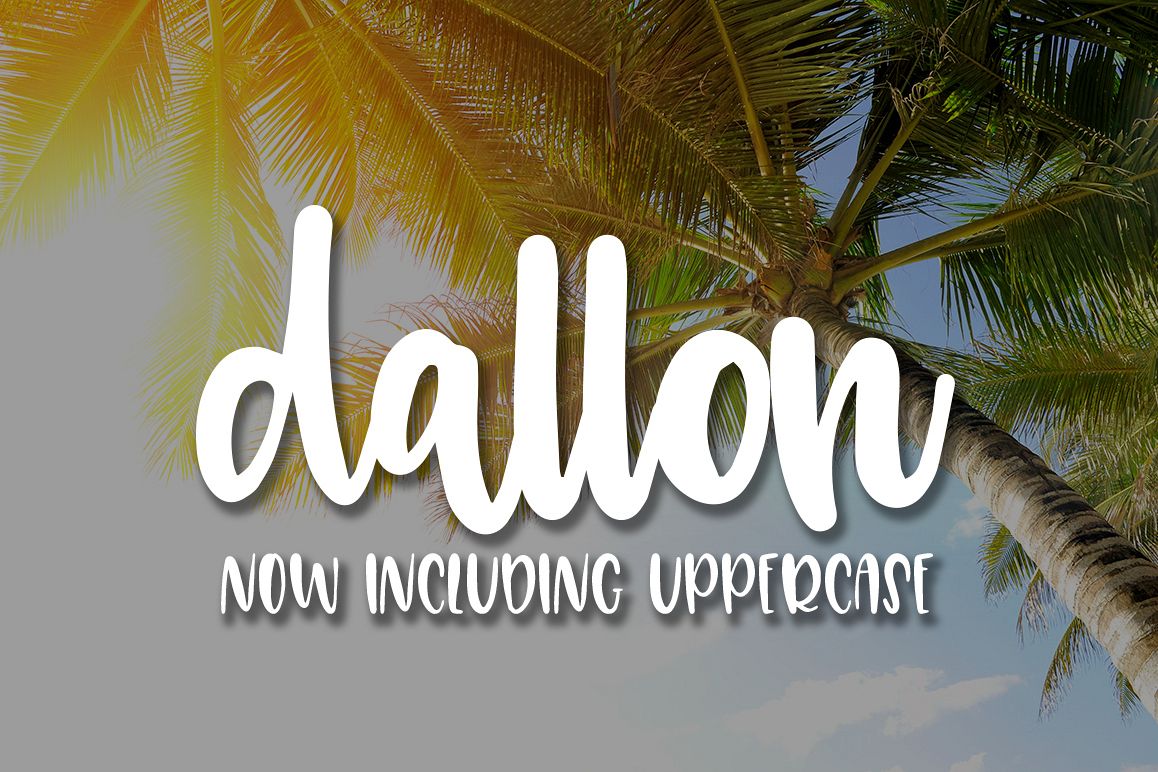
Dallon
Dallon is a display font in all lowercase letters. half script, half print. Great for craft projects and branding!
I had downloaded the lowercase font at some point for free. My computer crashed and I lost most of my fonts. Dallon is definitely one font that I needed in my new font library. Dallon is a font worth purchasing. Its a favorite for my customers when given a choice. I love the addition of the uppercase!
This is one of my favourite fonts.
Dallon